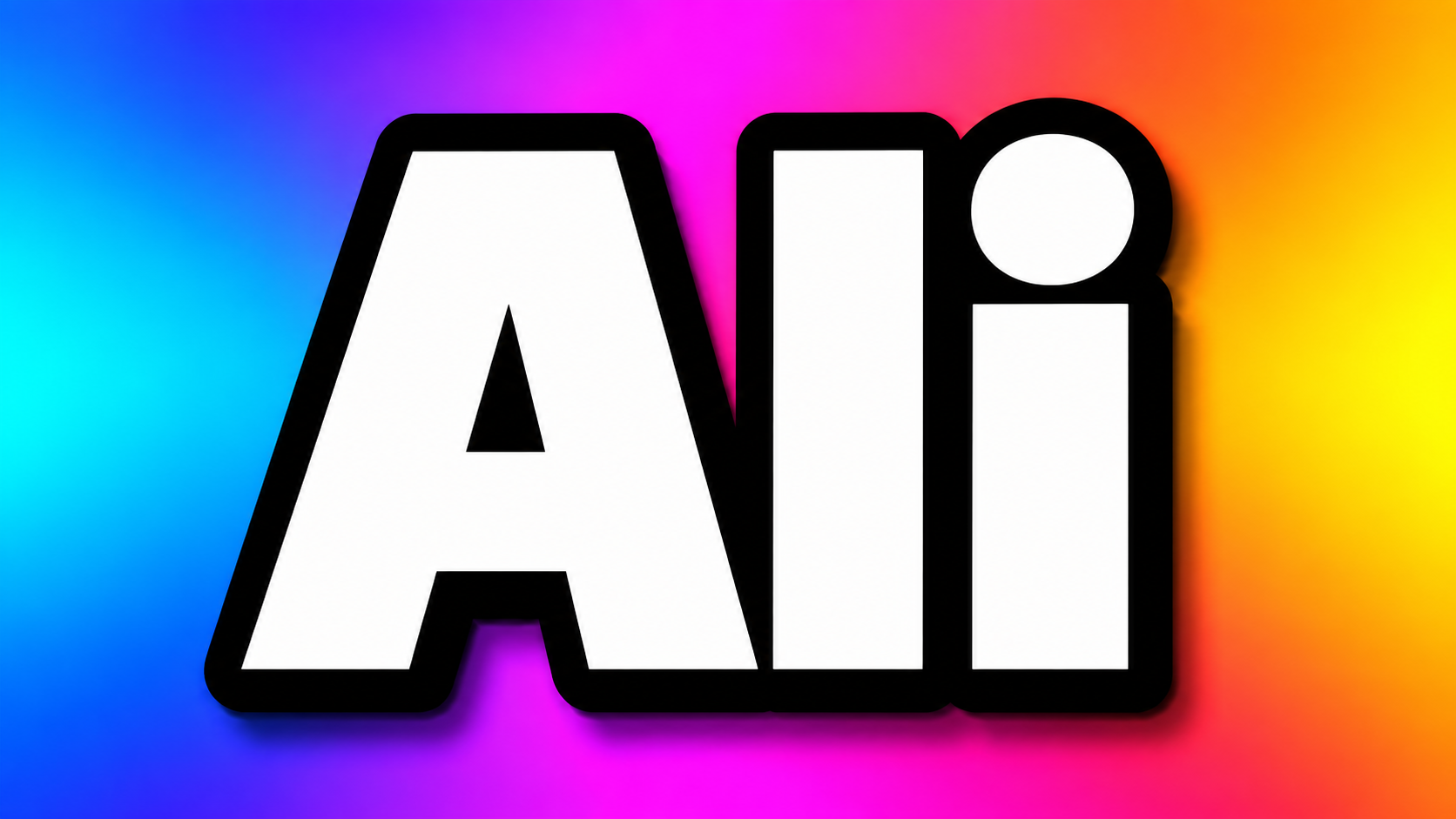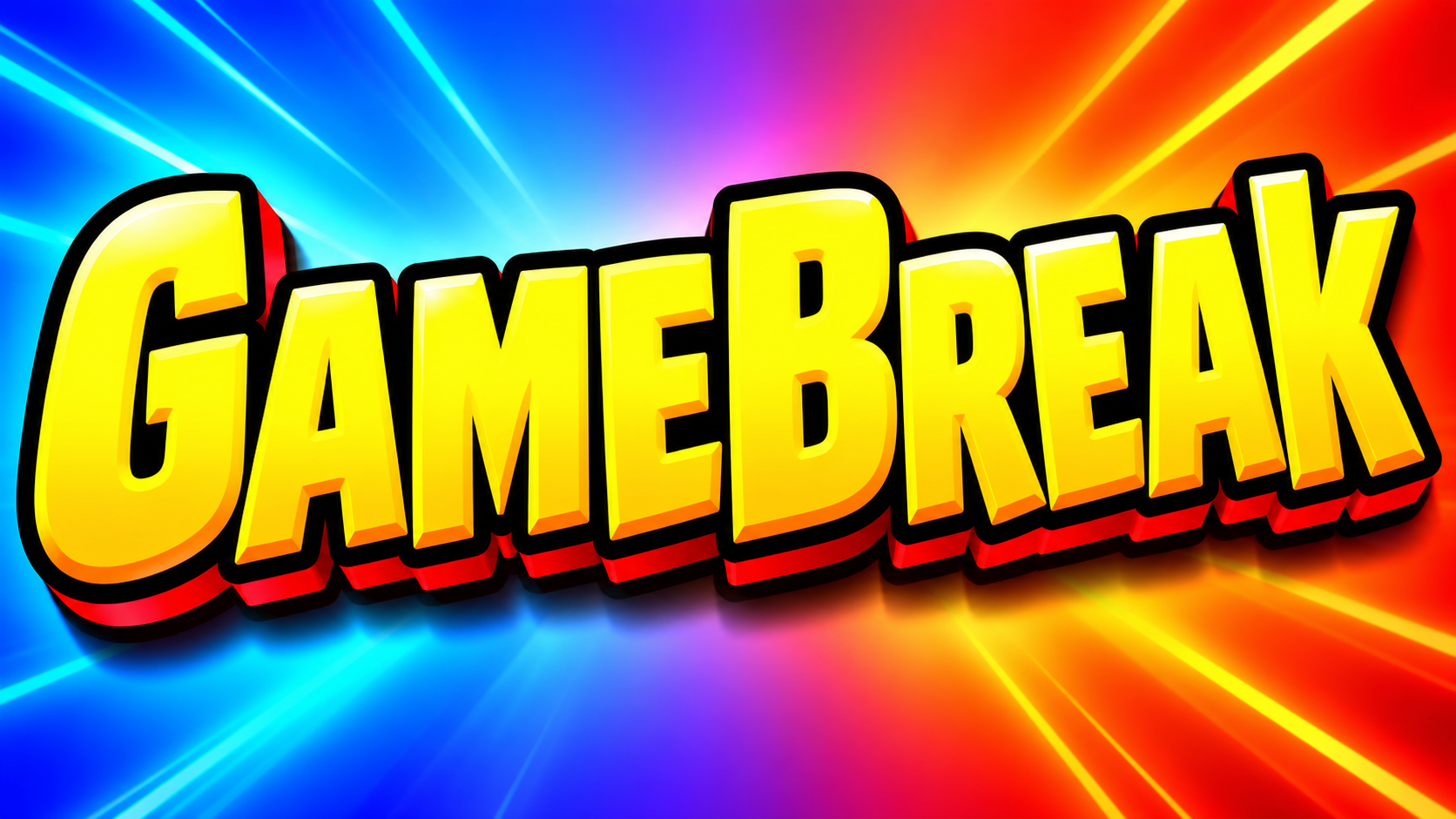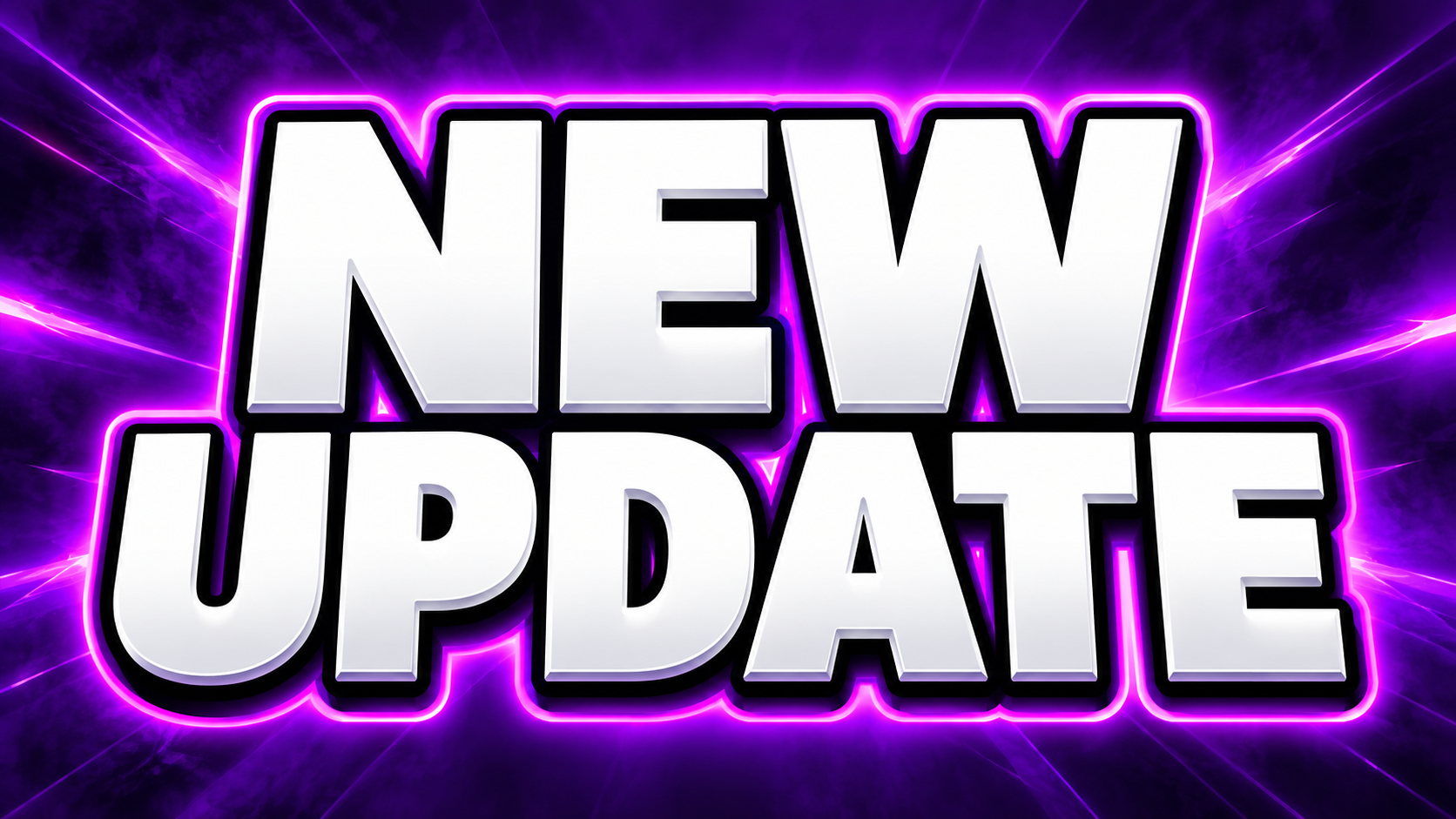
Thick, outlined, high-contrast text that stays readable at 168 pixels wide. Built for the click.
pure white letters with a very thick black outline and short black drop shadow, maximum contrast
Thumbnail text has one job: be readable at the size of a postage stamp, next to fifty other thumbnails, in under a second. The Fontique YouTube thumbnail font generator is tuned for exactly that. It produces heavy, tightly spaced letters with thick contrasting outlines, hard drop shadows, and optional glow, then frames them in a widescreen 16:9 composition. Resize the downloaded image to the pixel dimensions required for your thumbnail.
The presets follow what actually performs. Classic Outline is white text with a thick black stroke, Yellow Impact goes bright yellow with a red shadow, Neon Pop adds a glow for gaming channels, Comic Burst puts the words in a jagged speech burst, and Clean Bold is a minimal look for tech and education.
Heavy, tightly spaced sans-serif letters with a thick outline read best at feed size. Avoid thin, script, or highly decorative type, keep it to one to four words, and use strong contrast between the fill, outline, and background. The presets here follow those rules.